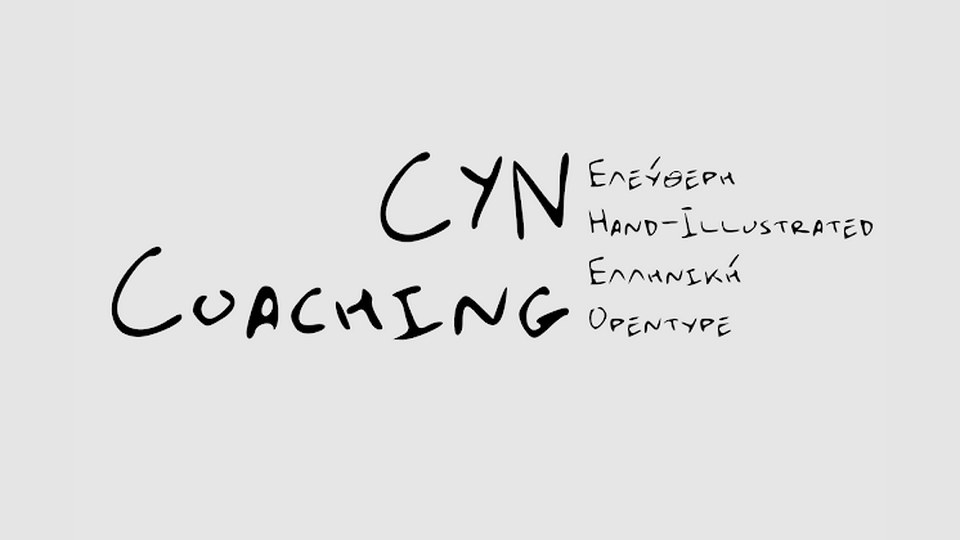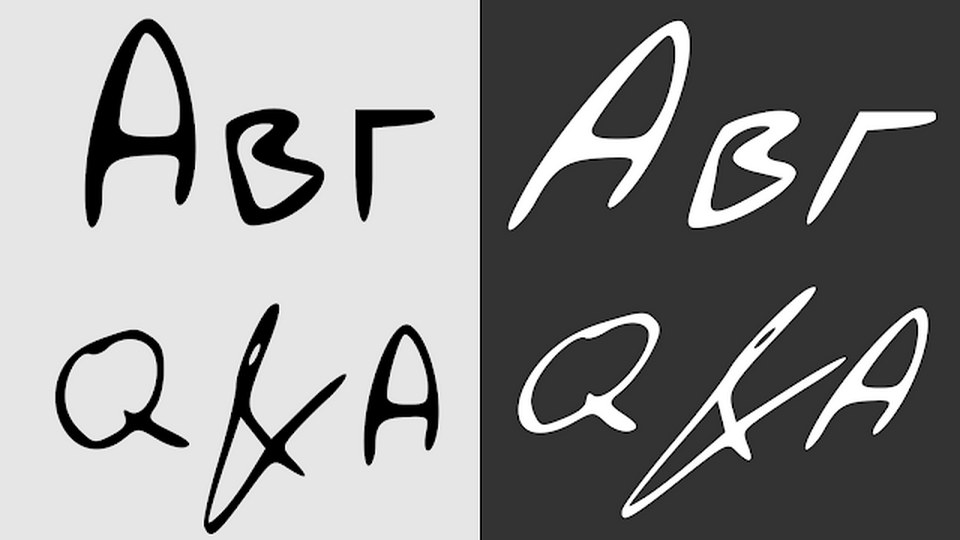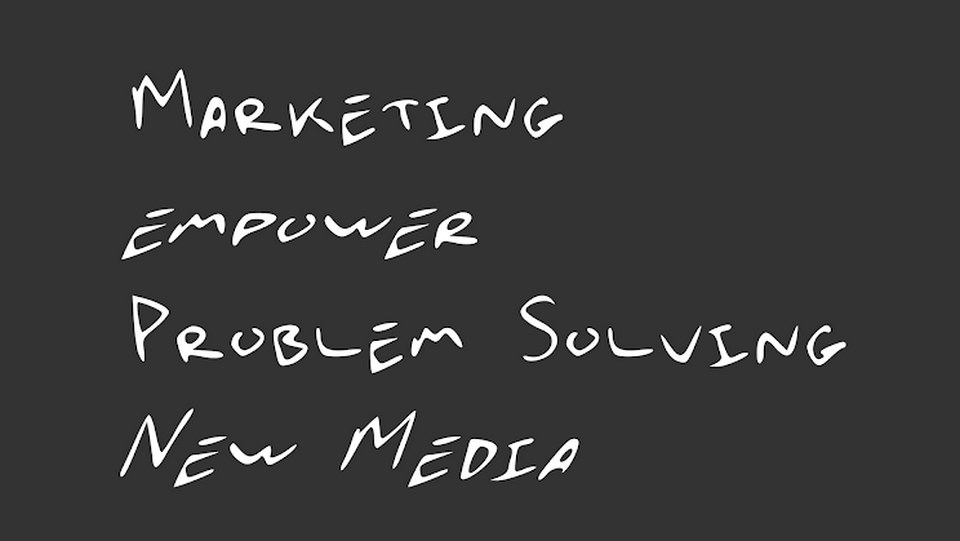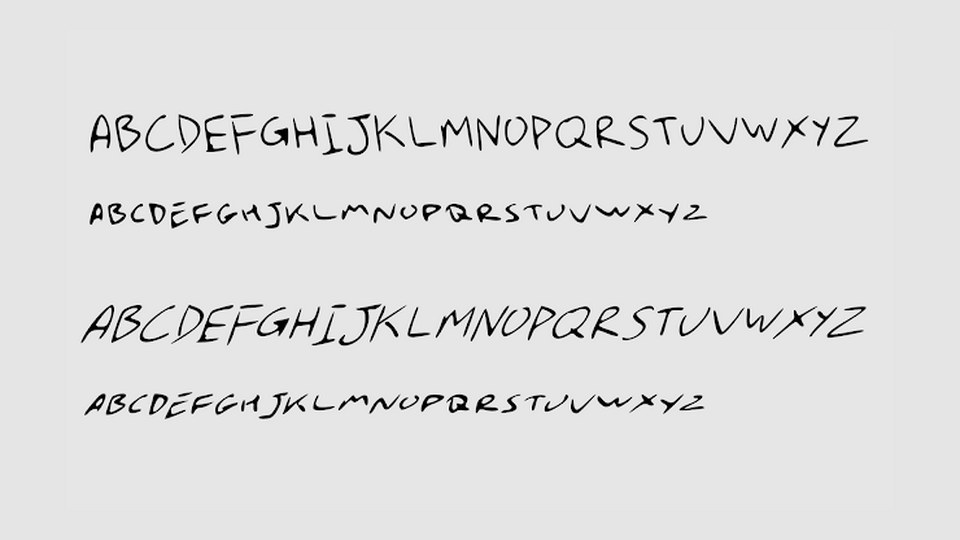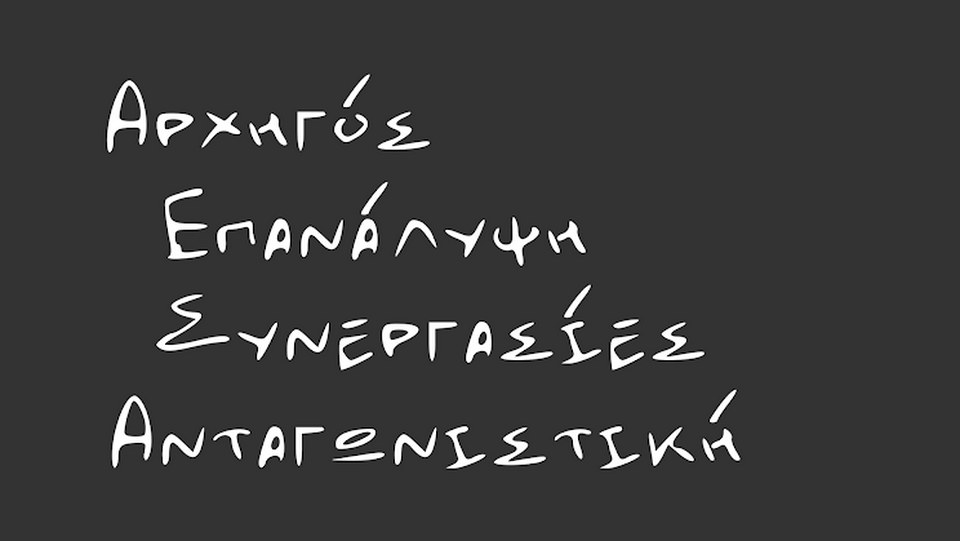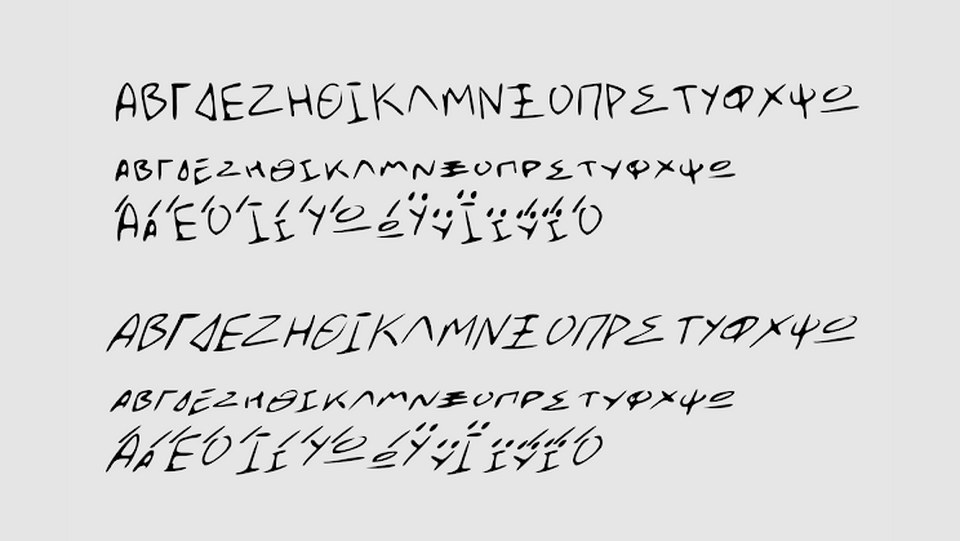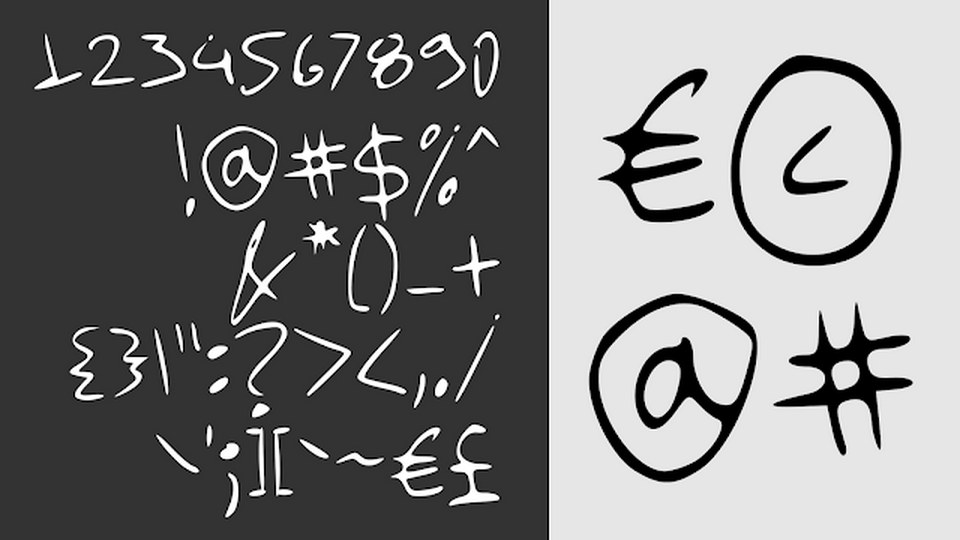
CYN Coaching is a hand lettered sketchy script font. It comes in a Medium weight with it’s Slanted, Greek and Latin with numbers and symbols. The font is great for notes, quotes, cards and any project, that needs a personal touch.